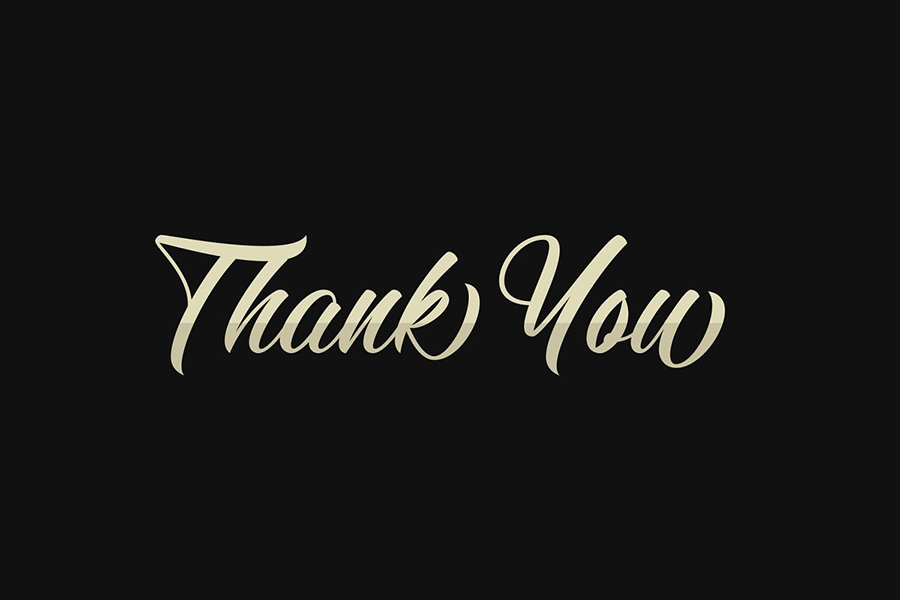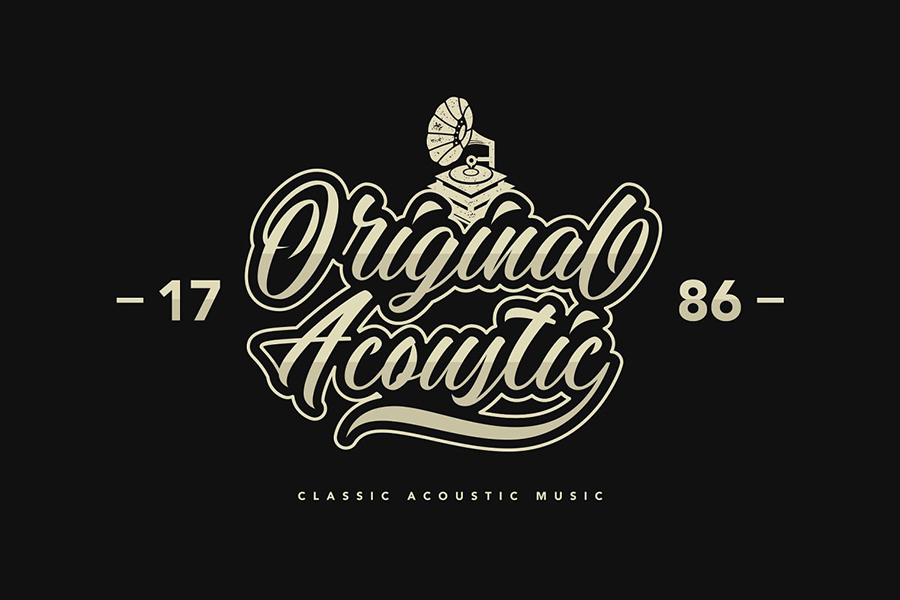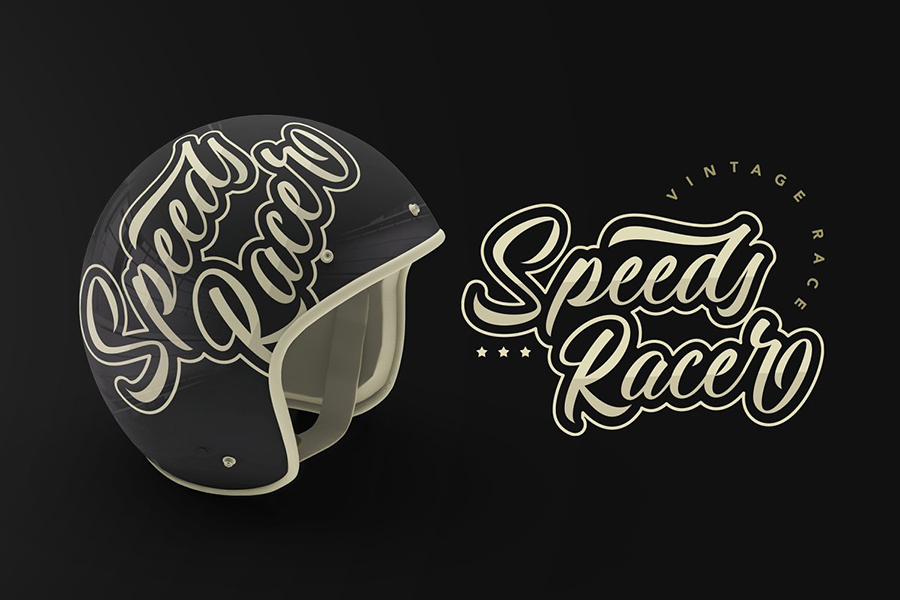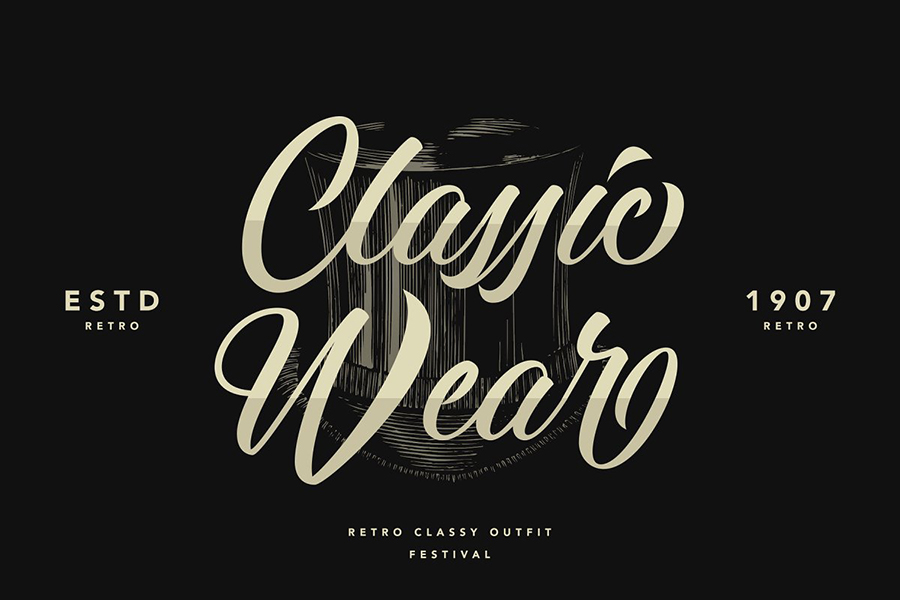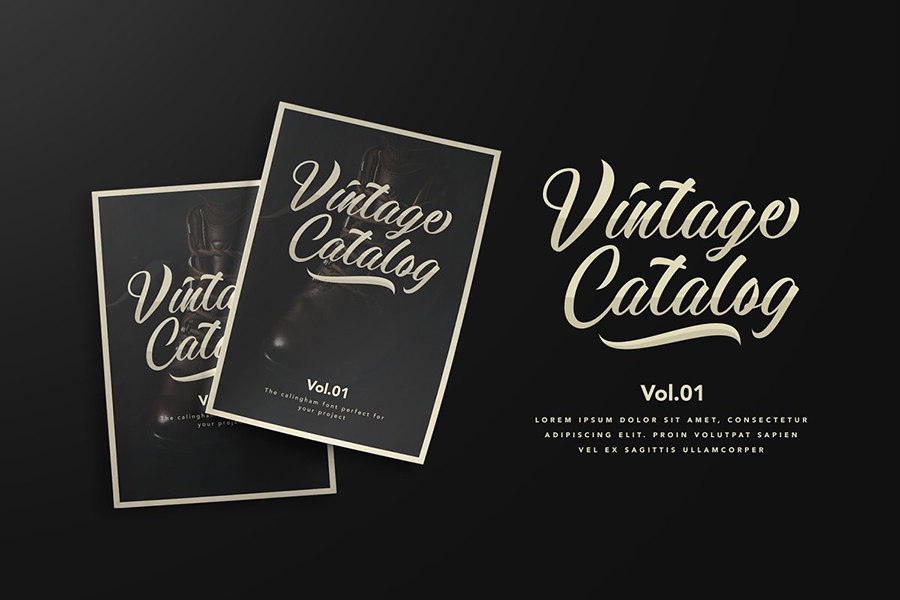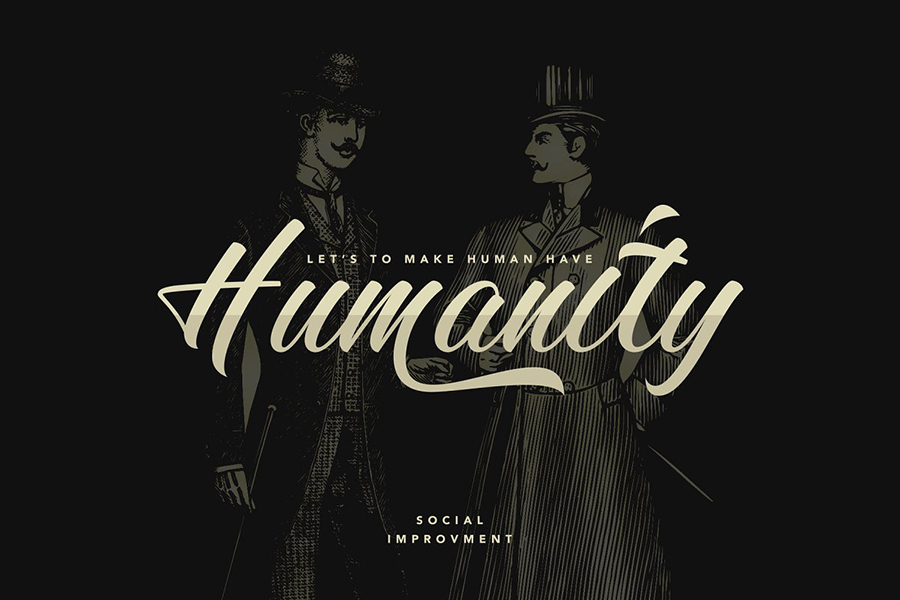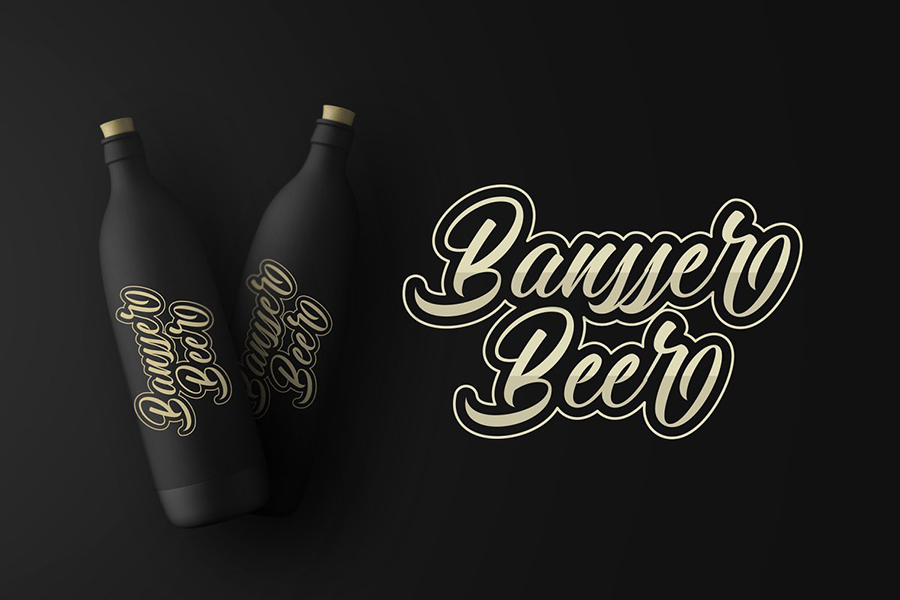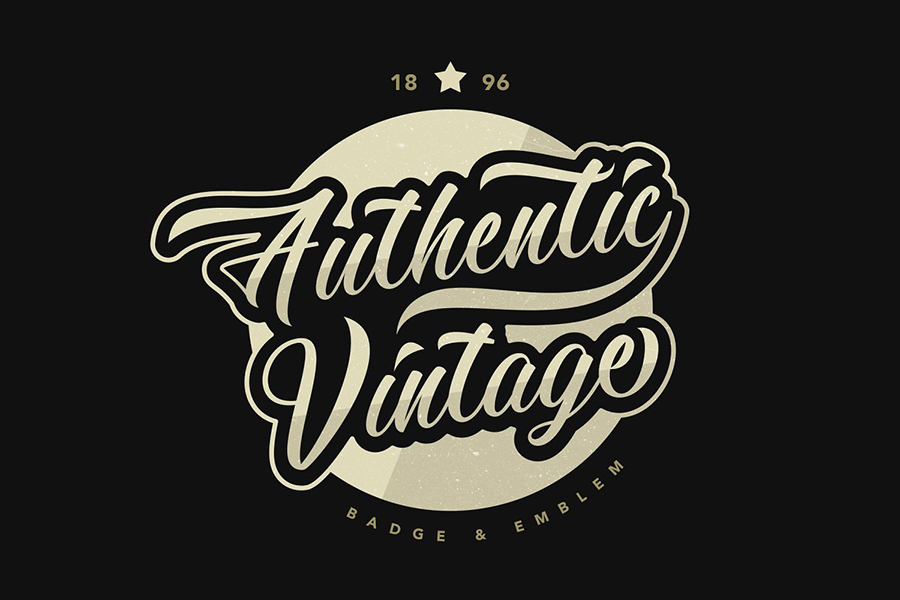
Calingham Script Free Demo
Calingham Script Free Demo is a brush font with a which gives a vintage and retro style but still with an elegant and classy touch to your projects. This font is an ideal choice for any kind of design such as branding projects, logos, social media posts, advertisements, product packaging, product designs, labels, poster, photography, t-shirt, watermarks, stationery, and any projects